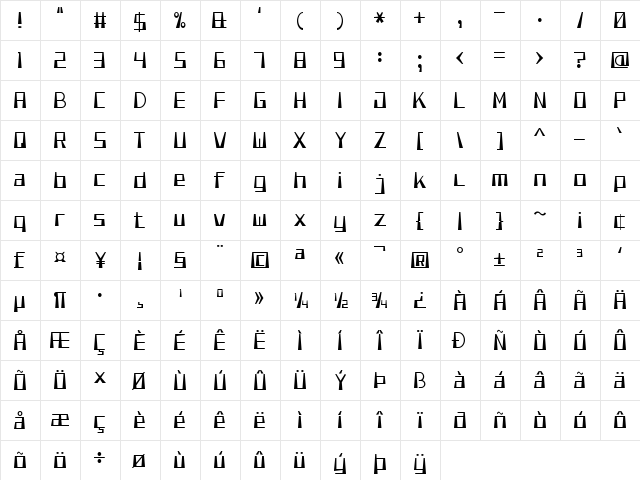
Smooth Pixel 7 Regular
| Foundry | Style-7 |
| Designer | Sizenko Alexander |
Design Context for Smooth Pixel 7 Typeface
Smooth Pixel 7 celebrates the constraints of early digital type, turning pixel geometry into a distinctive and immediately recognisable style.
Well-suited to indie game interfaces, retro computing aesthetics, and pixel art-adjacent design work.
Pro Tip: Use Smooth Pixel 7 at sizes that align with its pixel grid for the sharpest rendering — scaling to non-integer multiples can introduce unwanted blur.